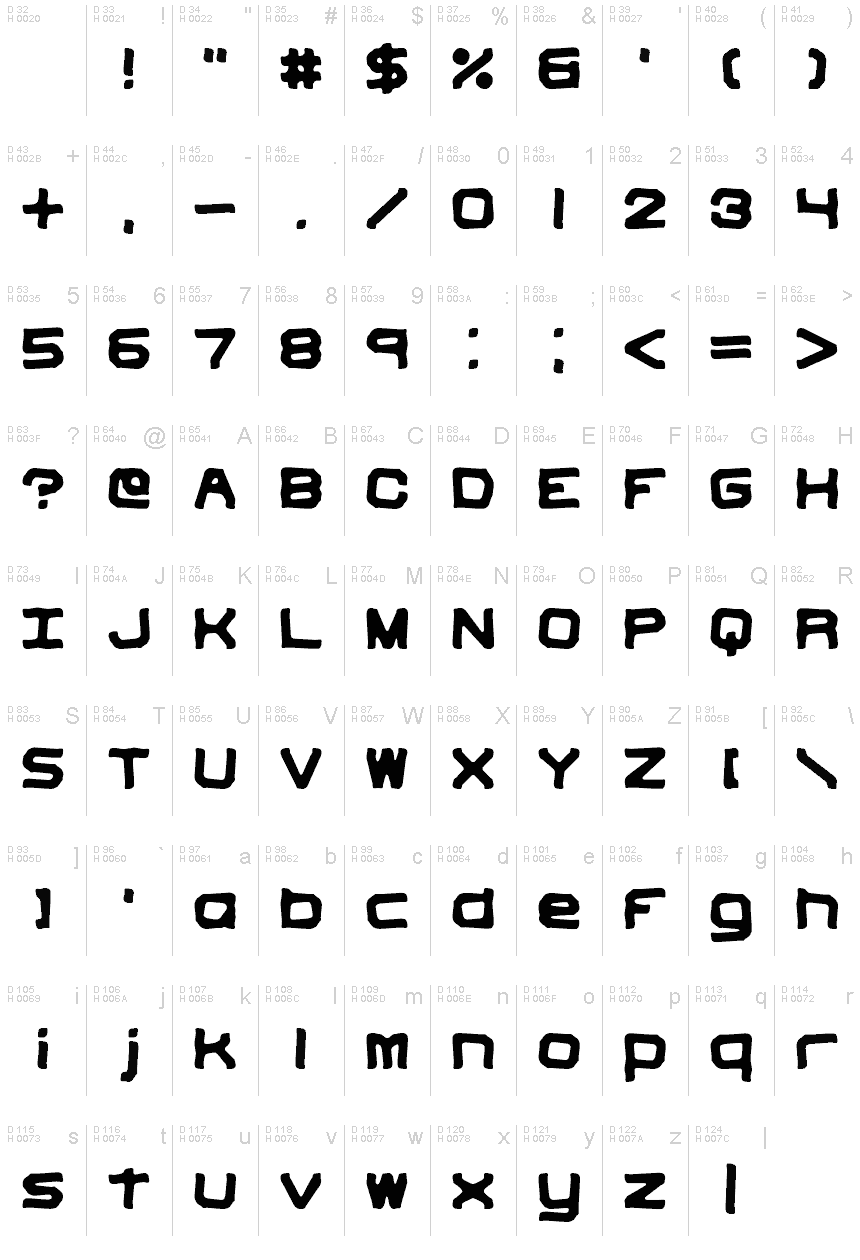
Vindictive BRK
Vindictive BRK by ÆNIGMA FONTS stands out as a display font with a distinct boldness and an extra-expanded width that commands attention. Its distorted style conveys a sense of raw energy and edginess, making it an impeccable choice for creative projects aimed at making a strong visual statement. The assertive presence of Vindictive BRK is ideal for titles, headers, and any application where the goal is to leave a lasting impact.
Whether used in graphic design, advertising, or digital media, this typeface offers designers an opportunity to infuse their work with unapologetic personality and contemporary flair.